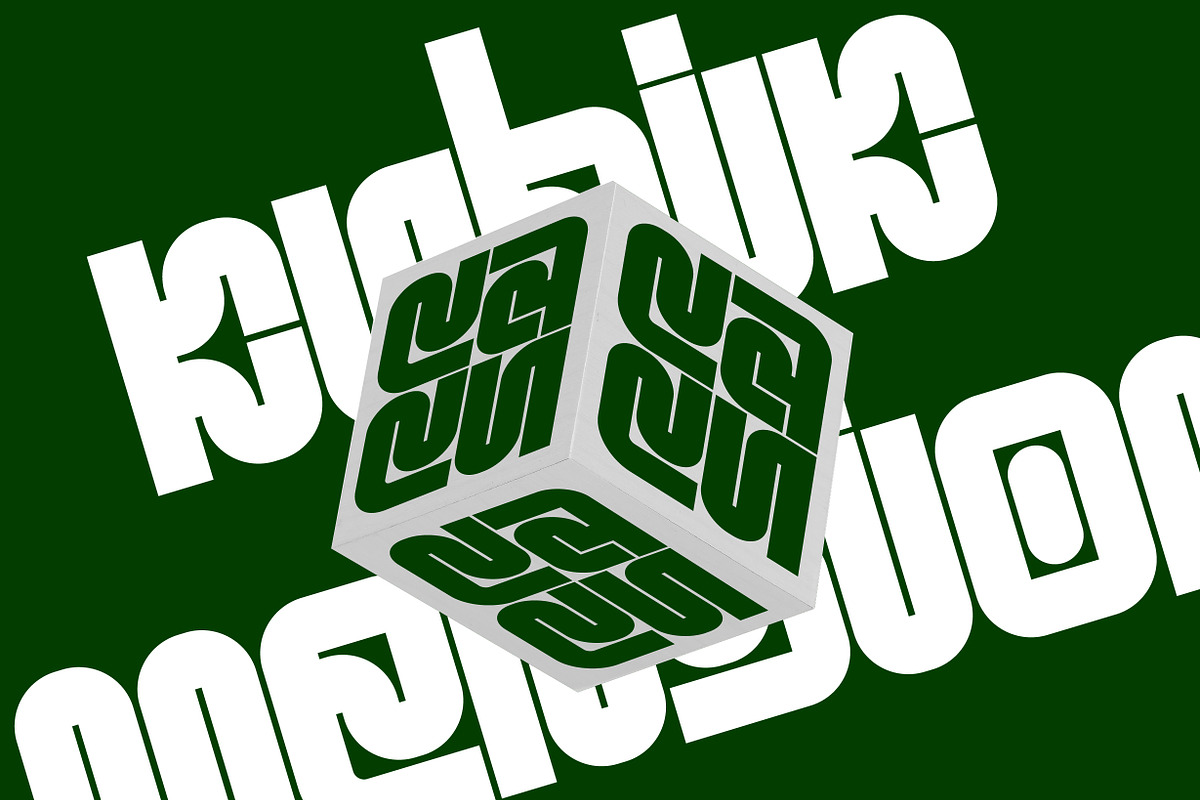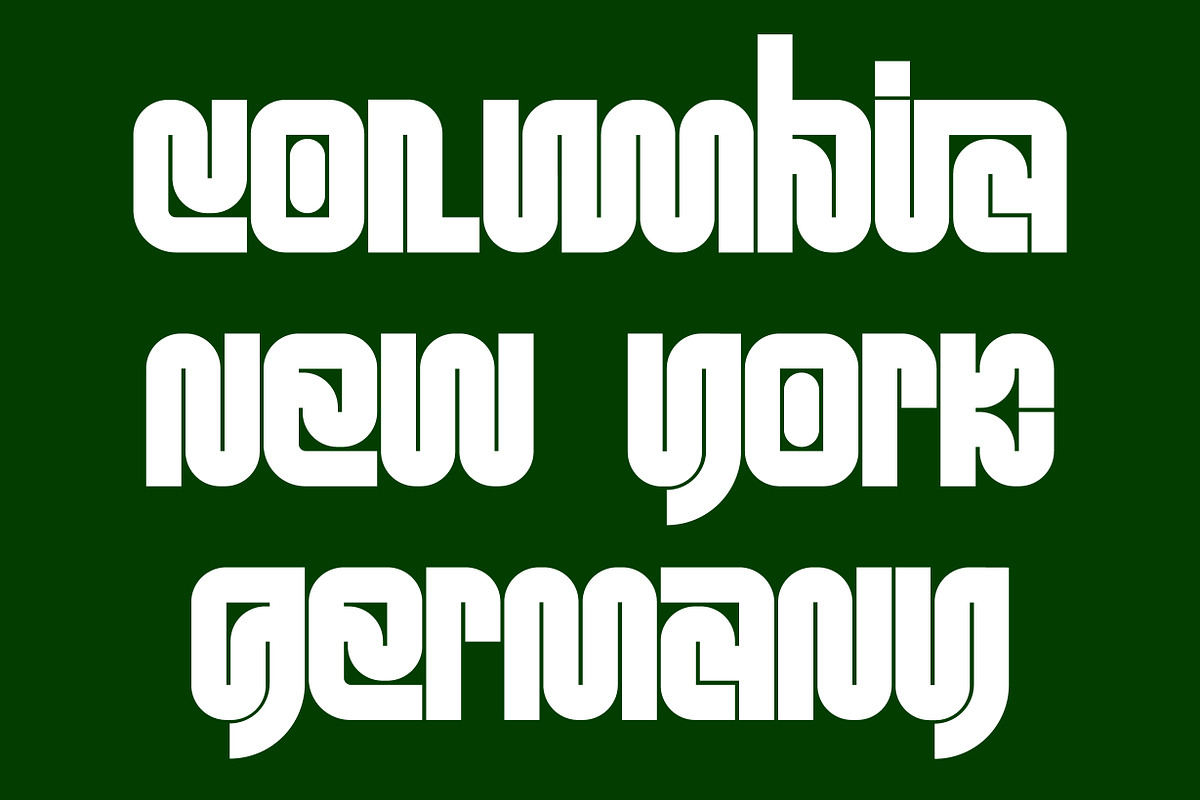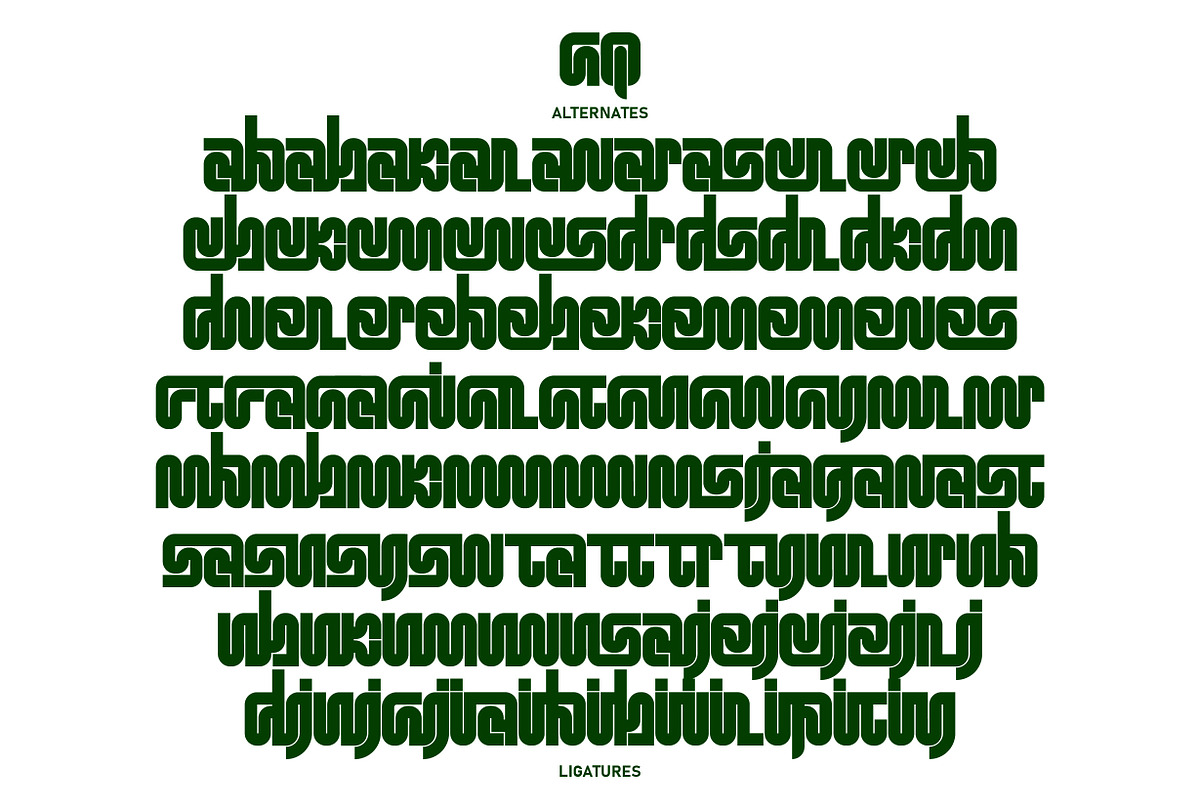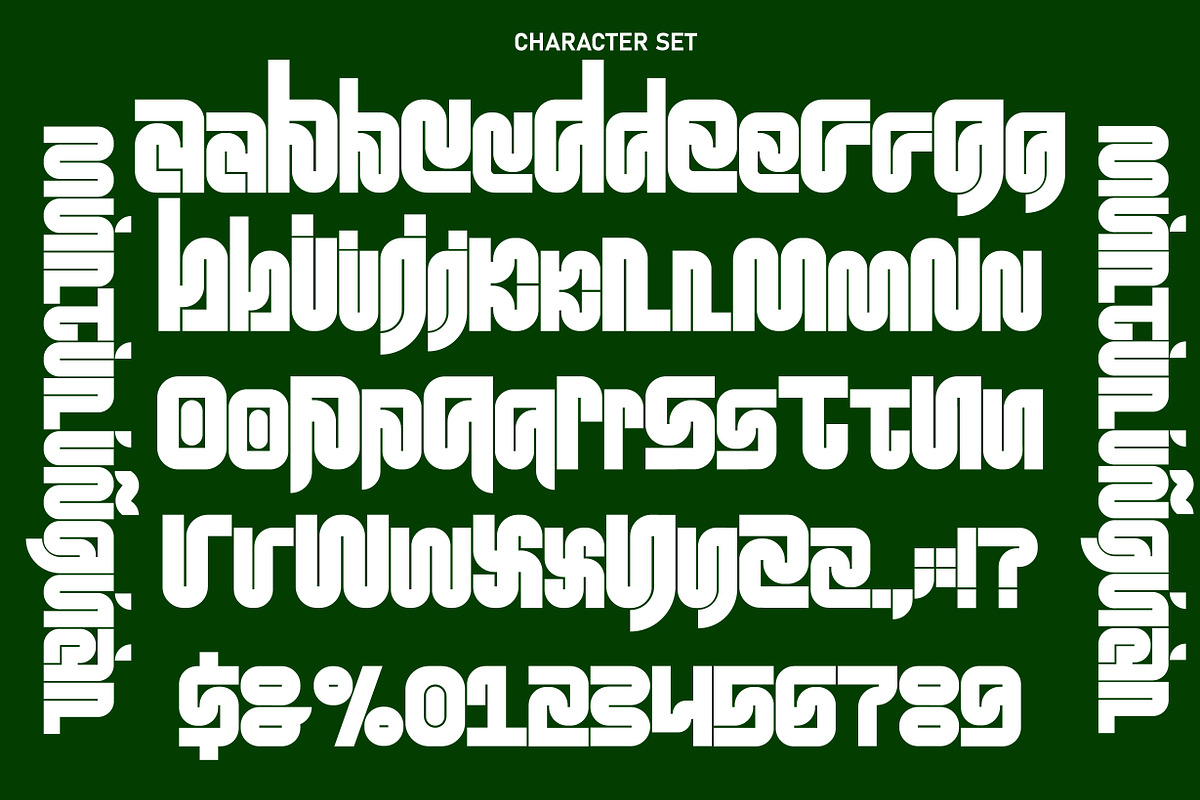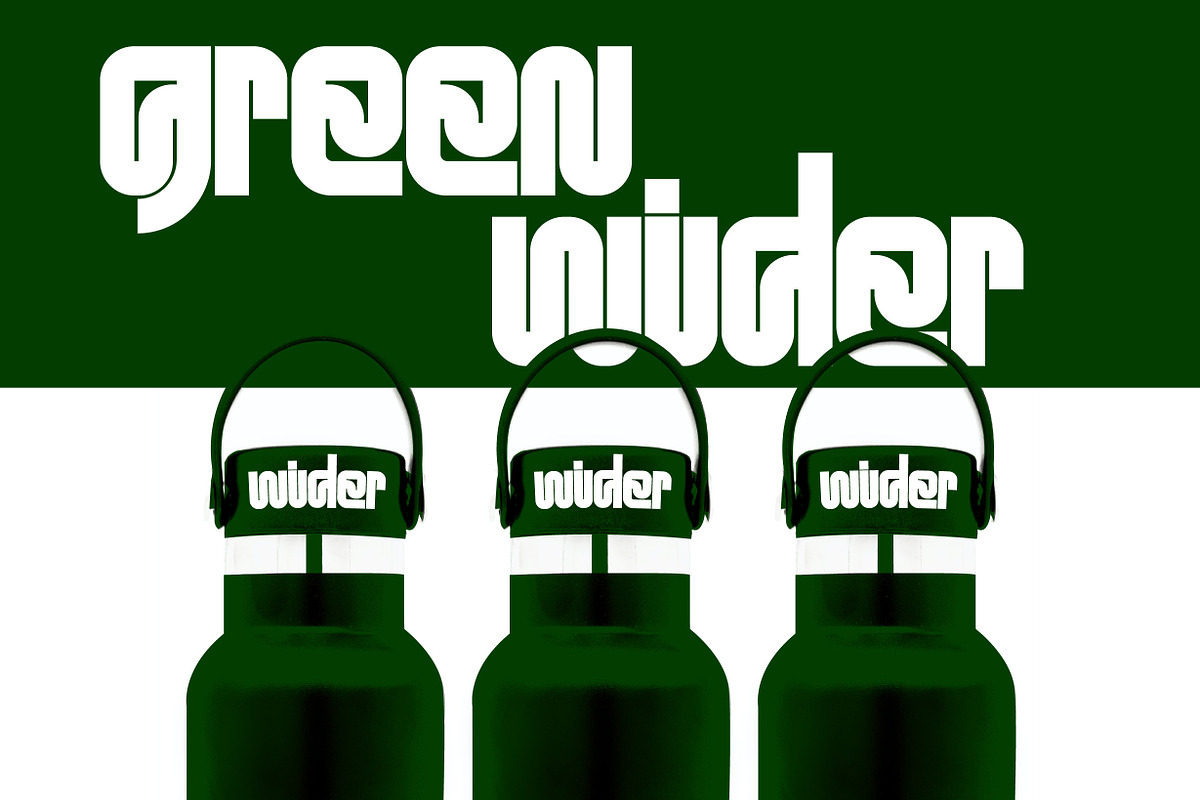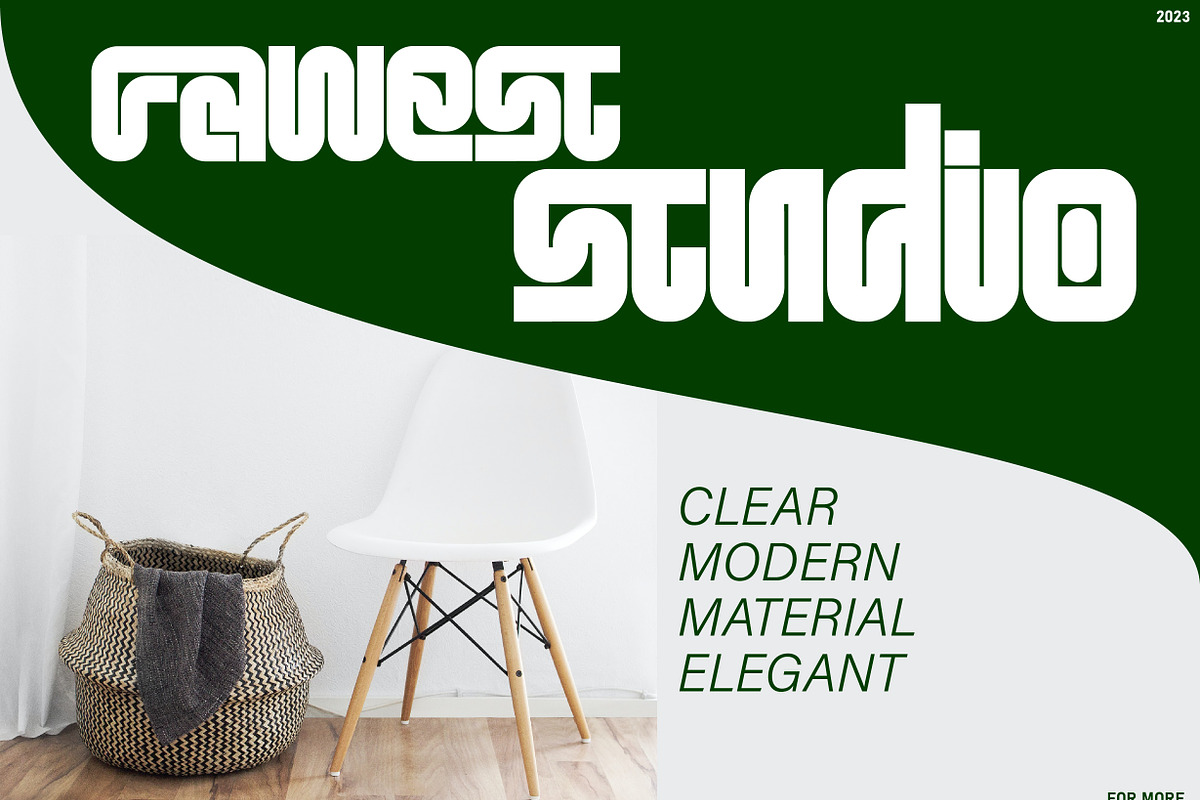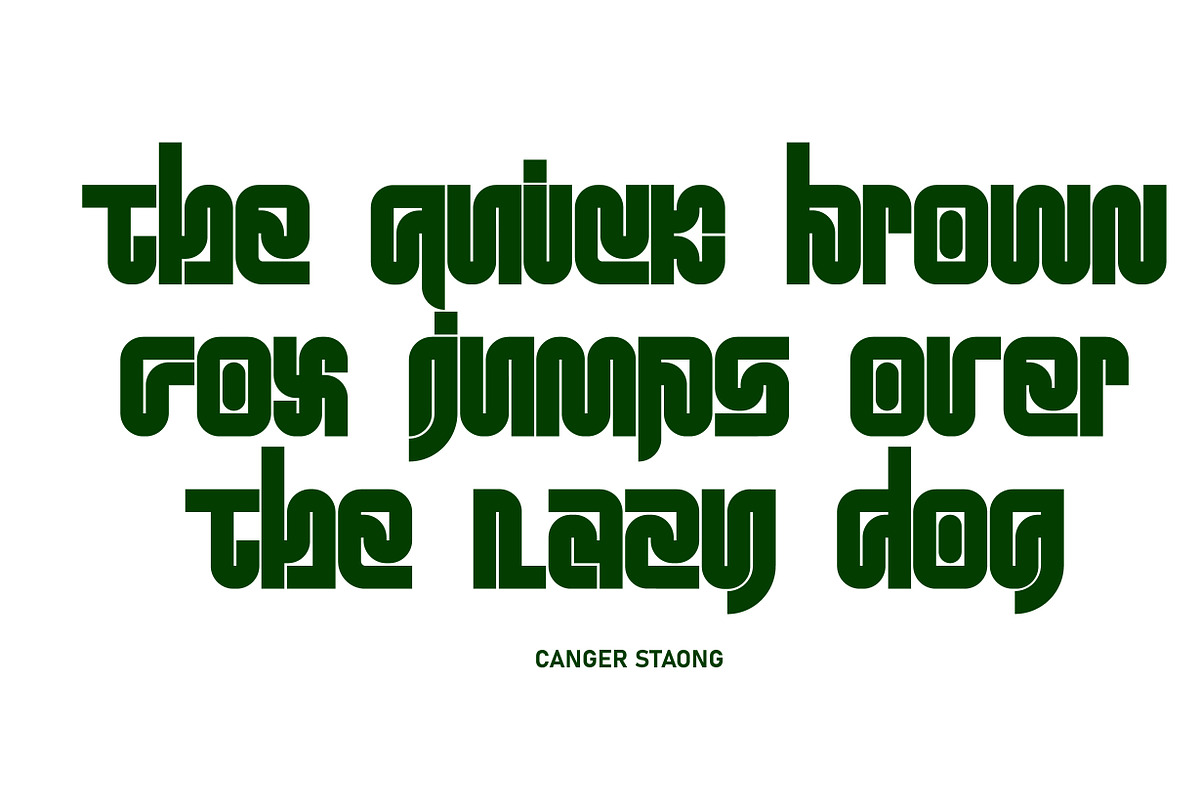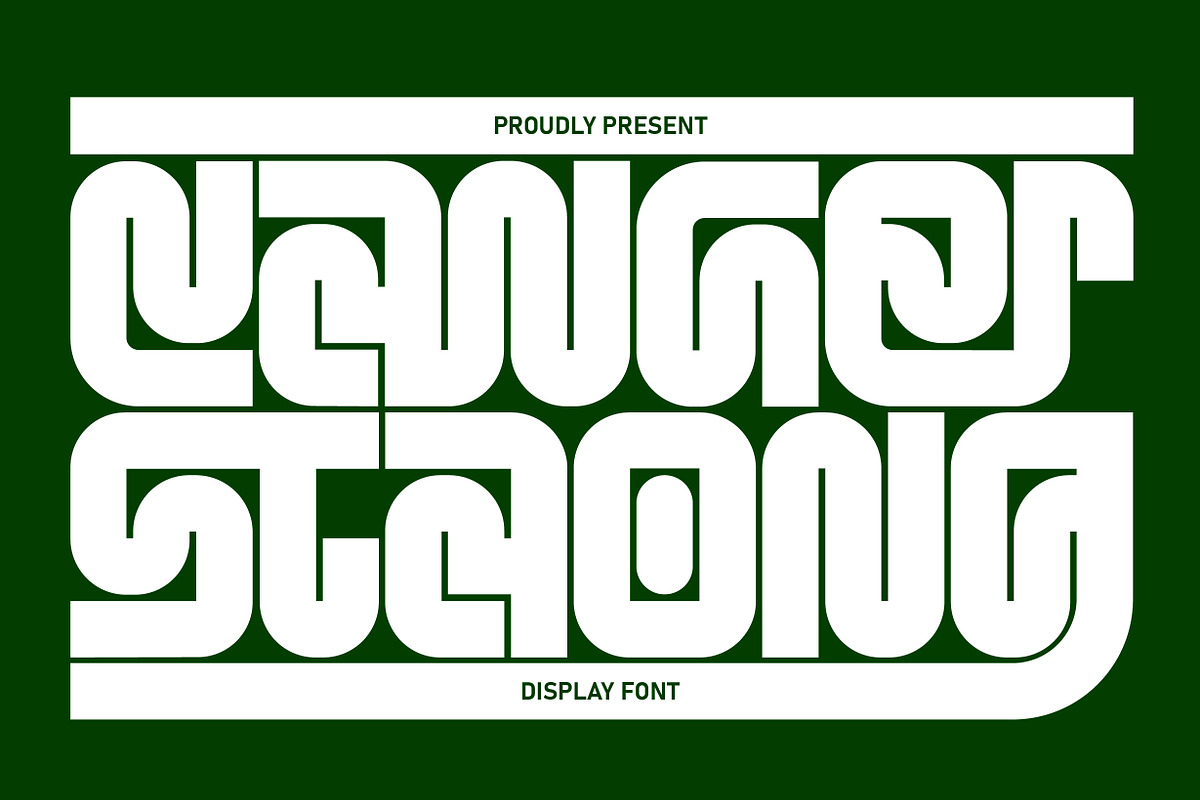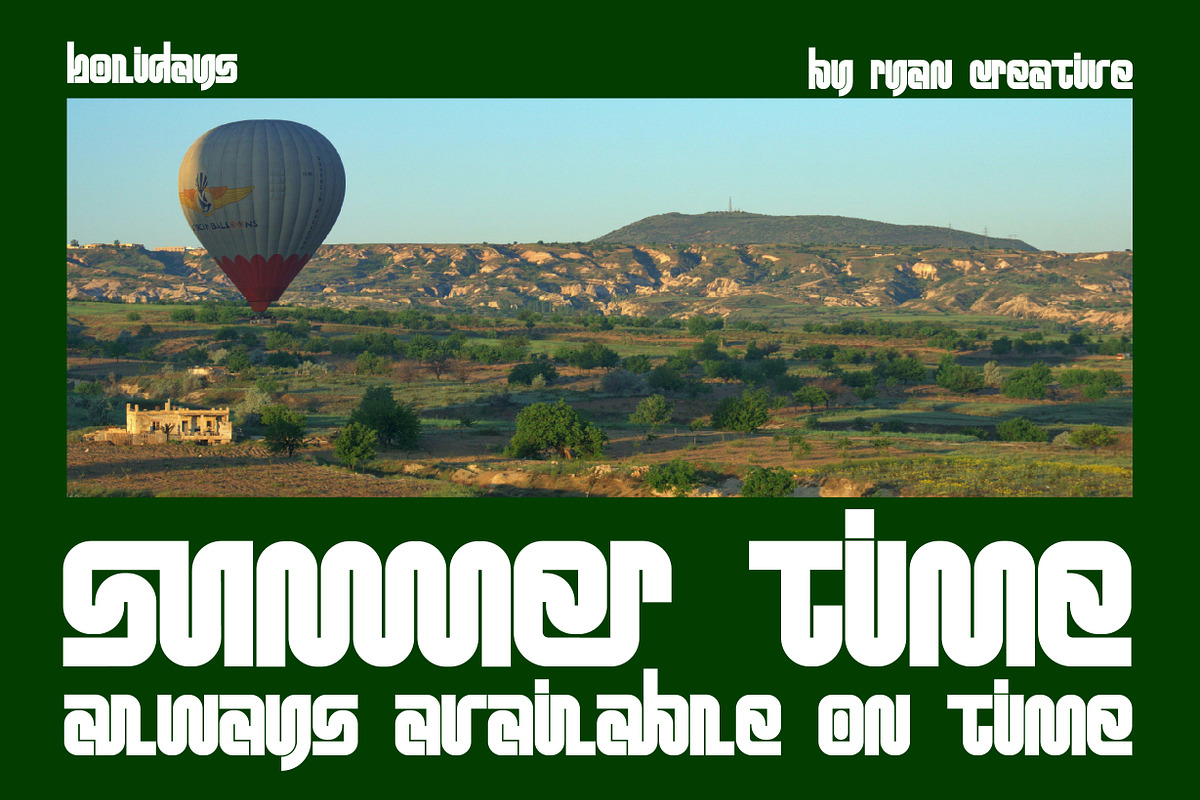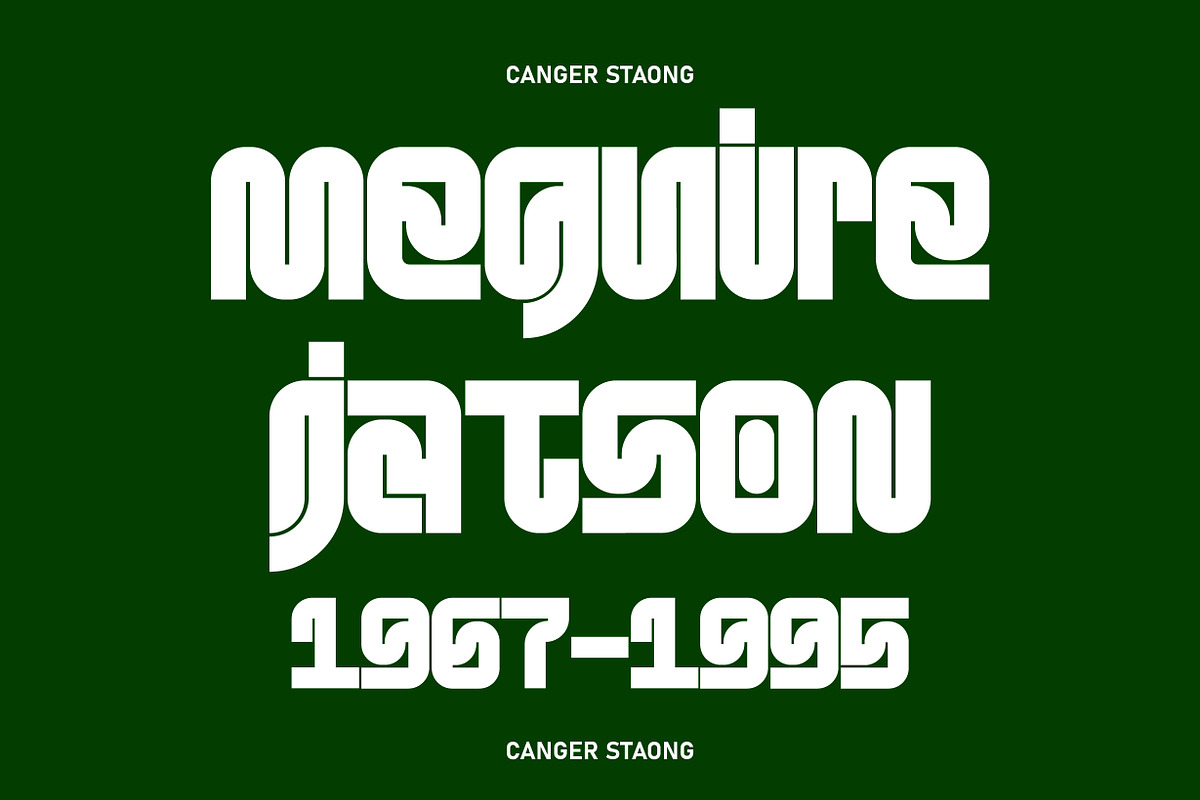
Canger Staong - Display Type
Introducing the Canger staong font which has a unique looking design. This font has curved joints like pipes. You can use Canger staong in modern and contemporary designs, and are suitable for use in various media such as stickers, posters, covers, typography and other digital media.